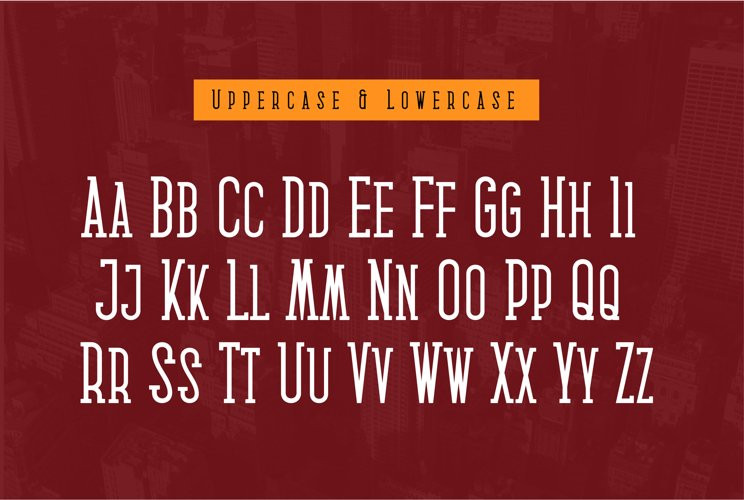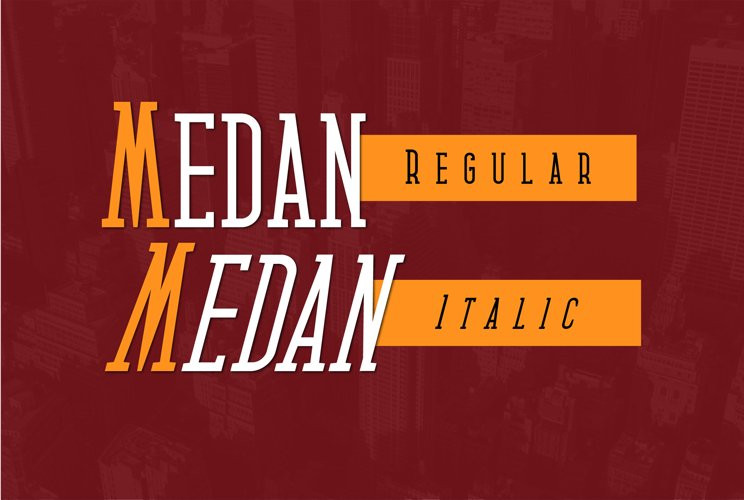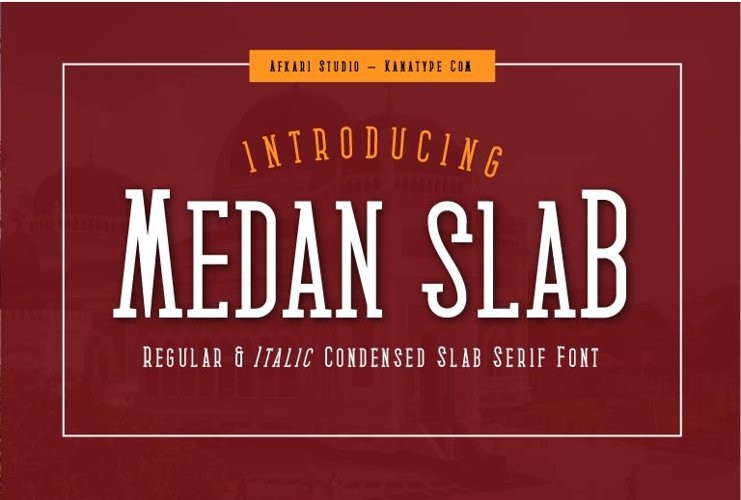
Medan Slab Font
Medan Slab Condensed Slab Serif Font
Medan Slab is Condensed Slab Serif Font an Elegant Condensed Slab serif with solid font files. Suitable for branding, name card, stationary, design title, blog header, Logo, greeting cards, quotes, posters, art quote, typography.
Medan Slab Condensed Slab Serif Font also suitable for your any projects.